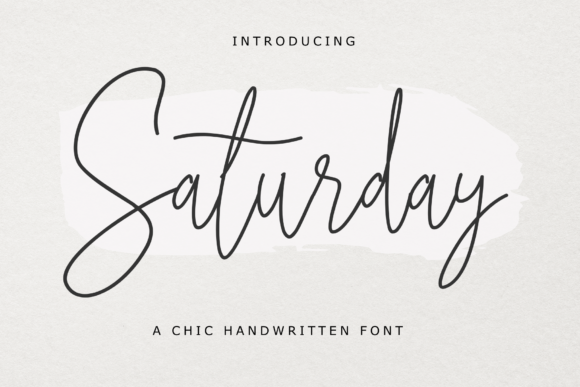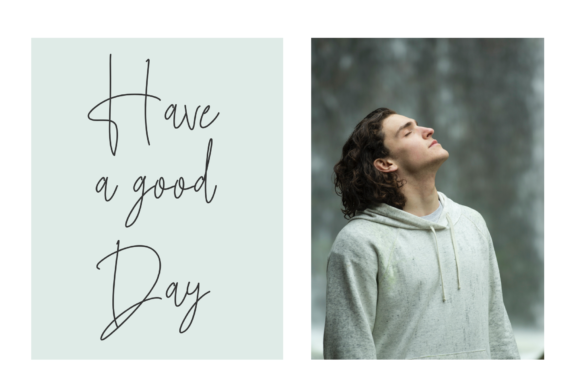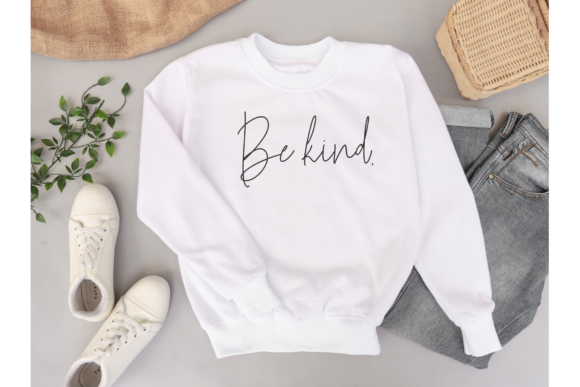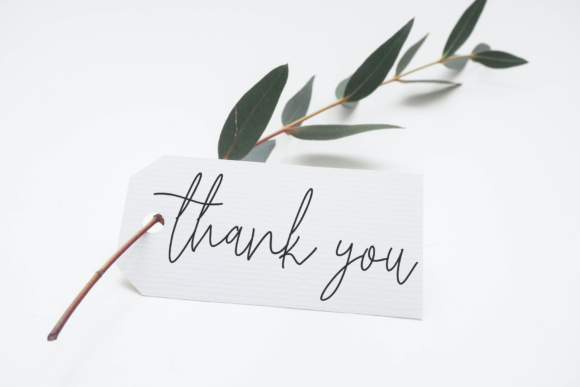
Saturday Font
About Saturday Font
Saturday is a chic and beautiful handwritten font. It maintains its classy calligraphic influences while feeling contemporary and fresh. It will add a luxurious spark to any creative design or project!